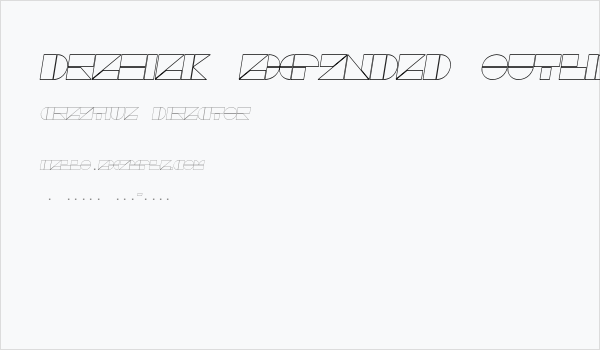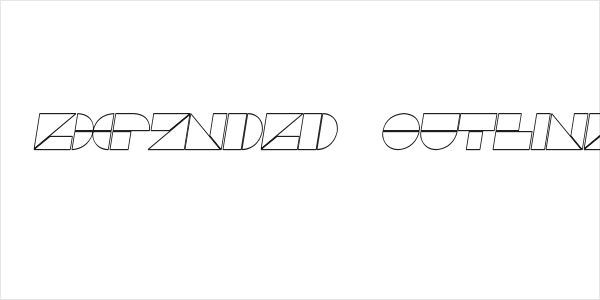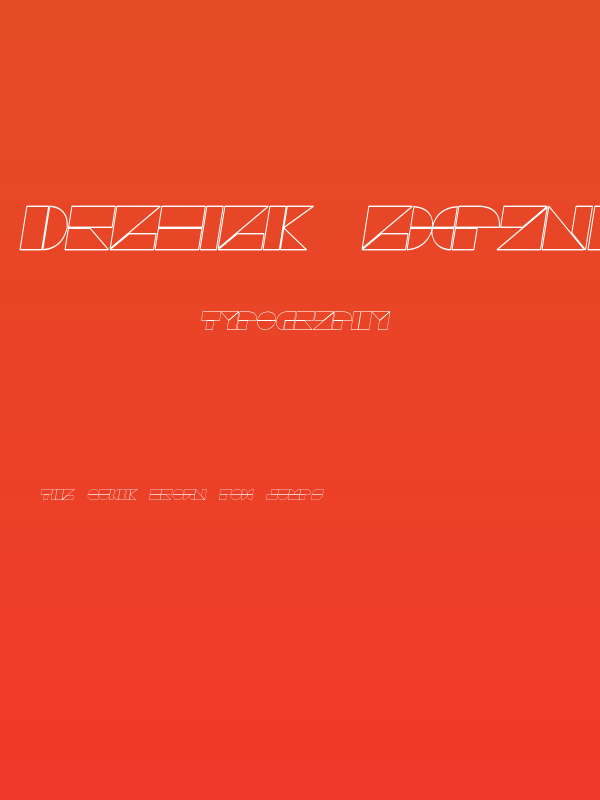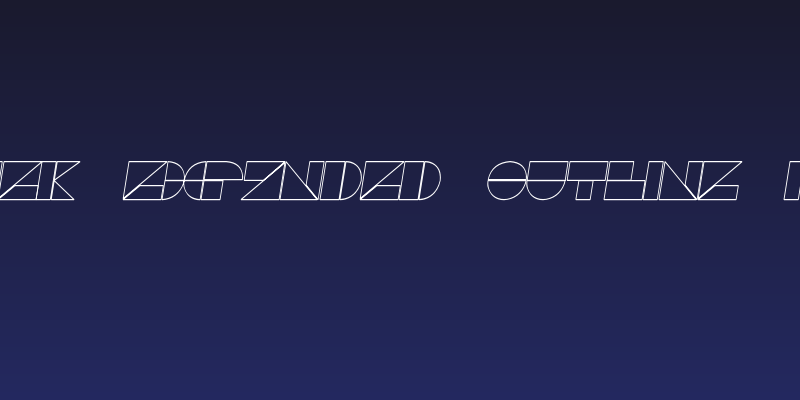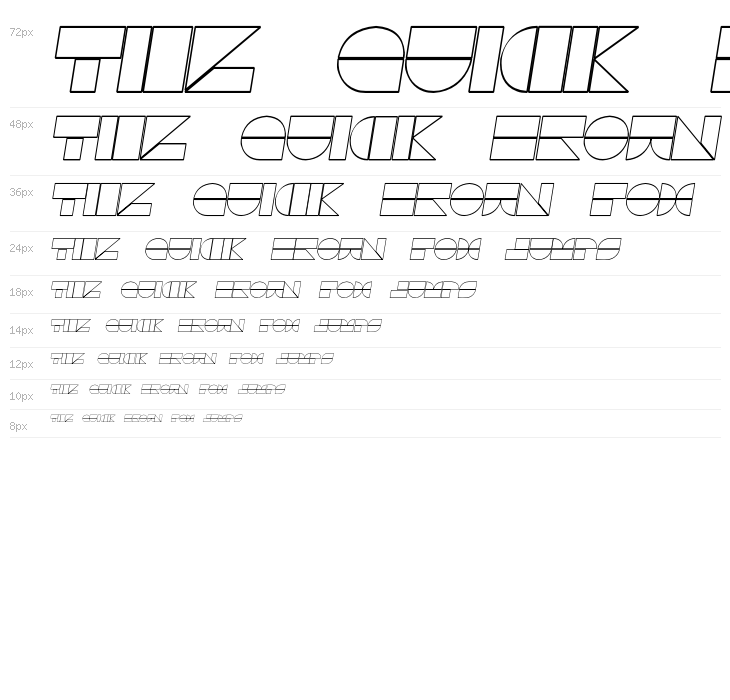
Drebiek Expanded Outline Italic Font
Drebiek Expanded Outline Italic Description
This font features a unique and futuristic design with an expanded outline style. The characters are constructed with geometric shapes, giving them a modern and abstract appearance. The italic slant adds a dynamic and forward-moving feel, enhancing its contemporary look. The font maintains a consistent line thickness throughout, emphasizing its outline nature. The spacing between characters is wide, allowing each letter to stand out distinctly. This font is ideal for creative projects that require a bold and innovative aesthetic.